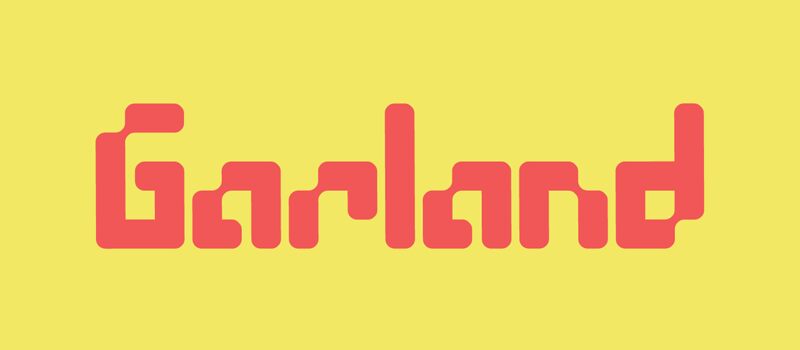
Garland by Erik Getzel of FontStruct is a free futuristic display font with broad, rounded strokes and an unmistakably circuit-like profile. Squared proportions, clipped joins, open gaps, and compact curves recall custom electronic signage.
For game interfaces, it can make menus and title graphics feel like part of the fictional hardware. Music posters and technology branding gain a similarly engineered voice from its linked stroke shapes. Packaging for electronics and arcade-themed merchandise also suits the design because each word can function like a label from the same imagined machine.